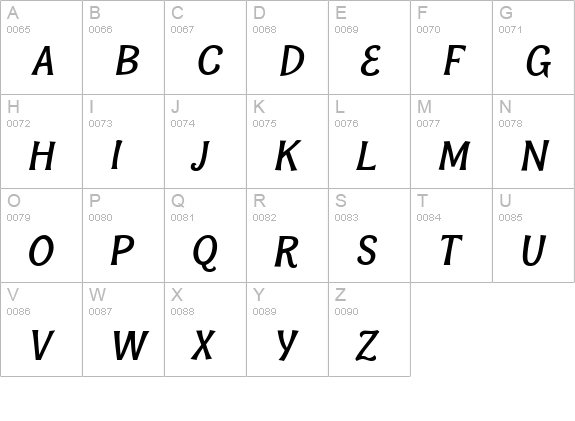
Bonobo Bold Italic Font Details
Bonobo Bold Italic is a strong, high-contrast, italic variant in the Bonobo typeface family \xE2\x80\x94 well suited to headlines, attention-grabbing titles, and strong calls-to-action.
Introducing Bonobo Bold Italic font - a stylish and dynamic typeface that commands attention with its striking design. This unique font combines boldness with elegance, making it perfect for a wide range of creative projects. The slanted italics add a touch of sophistication, while the strong weight demands to be noticed. What sets Bonobo Bold Italic font apart is not just its eye-catching aesthetics, but also the fact that it is freely available for download at FontsMarket.com. This means you can easily add this versatile font to your collection without any cost, making it an excellent choice for graphic designers, artists, and anyone looking to elevate their designs. Whether you're working on branding, advertising, packaging, or any other project that requires a bold and distinctive typeface, Bonobo Bold Italic font is sure to make a statement. Download it today and unleash your creativity with this impressive and versatile font.